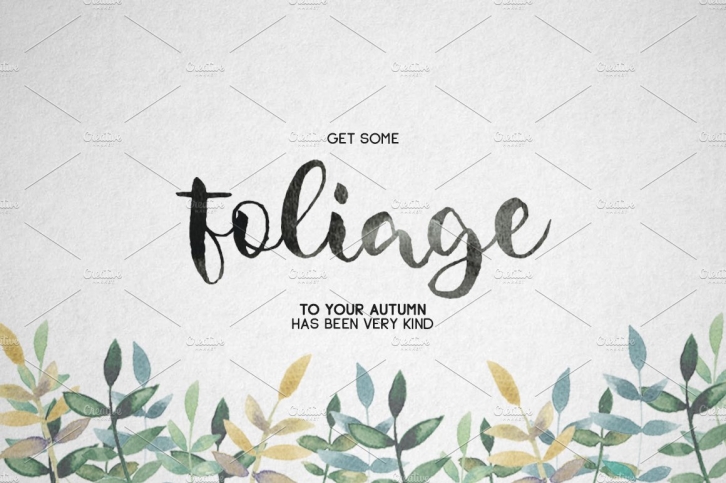
I represent to your attention an incredible 100% handwritten font. Very suitable for the design of logos, creation of invitations, greeting card and more.